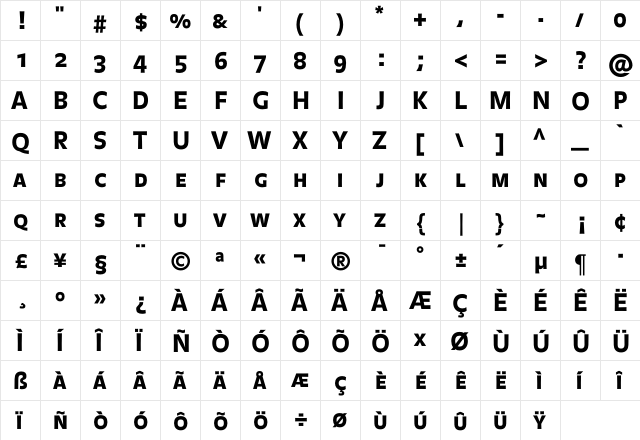
BalanceBlack-Caps Regular Font Preview
BalanceBlack-Caps Regular
BalanceBlack-Caps Regular Font Details
Design Context for BalanceBlack-Caps Typeface
BalanceBlack-Caps offers clean, dependable letterforms without strong stylistic allegiance, making it a practical choice for designers who need flexibility.